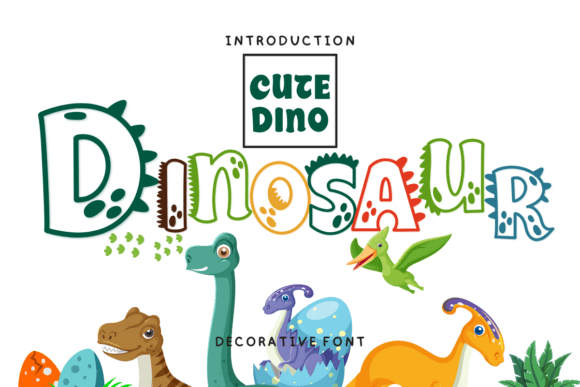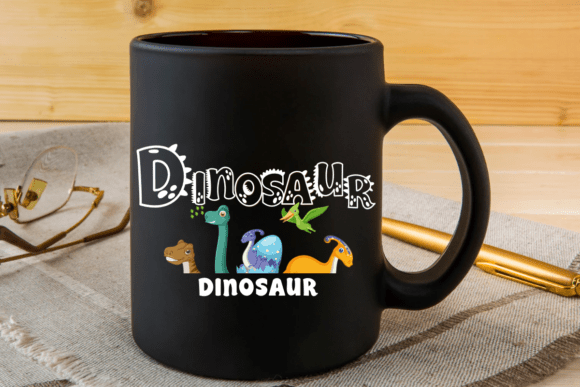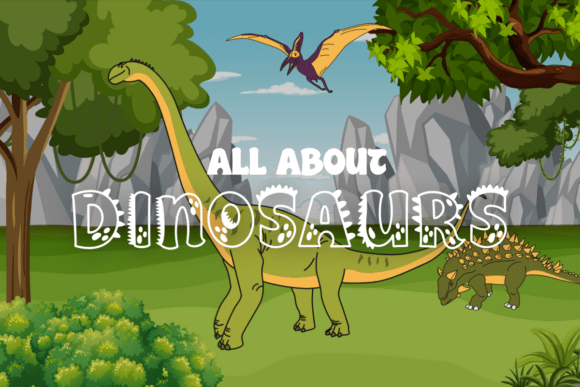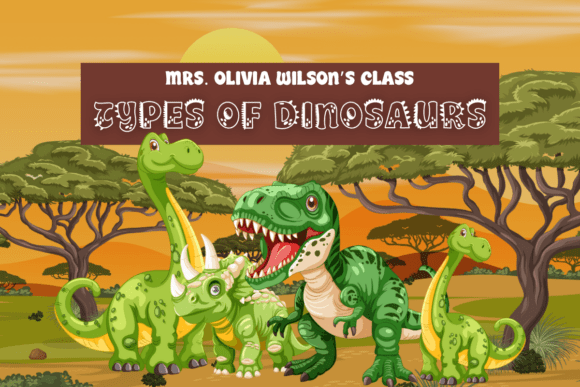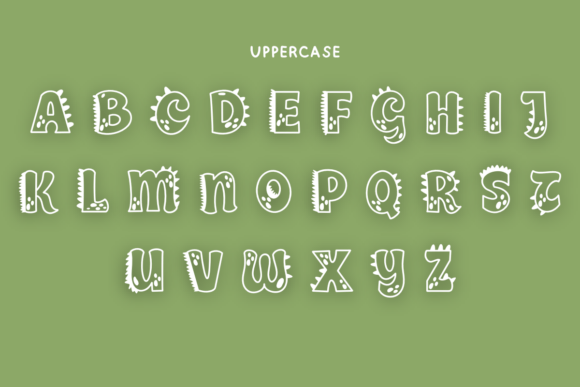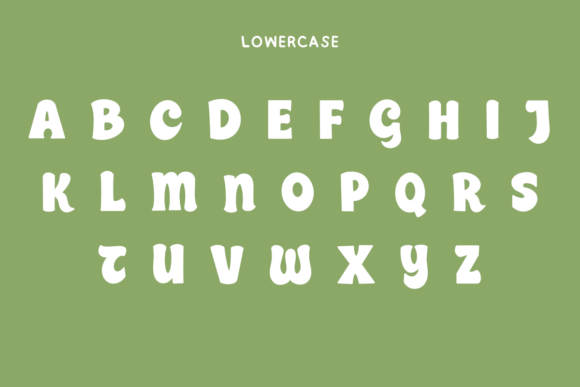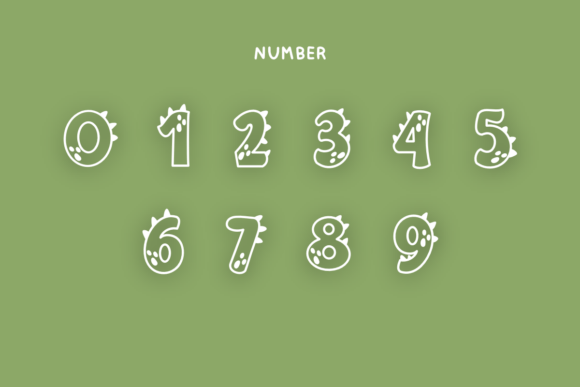
Dinosaur Font
Unleash the dinosaur within your creative endeavors with the Dinosaur font. Its decorative charm acts as a captivating tool for notetaking, diary entries, or designing sentimental greeting cards. Go beyond the ordinary and infuse its distinctive flair into a variety of designs. Whether adorning a vibrant banner, imprinting a cozy mug, decorating a colorful card, enhancing a trendy t-shirt, breathing life into your stationery, or adding whimsy to your social media posts, Dinosaur font stands out, leaving an indelible print. This versatile font is all set to embolden your designs and redefine your style statement.